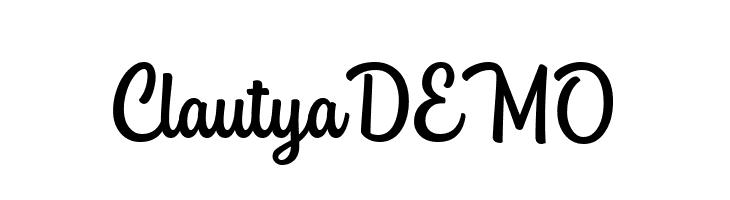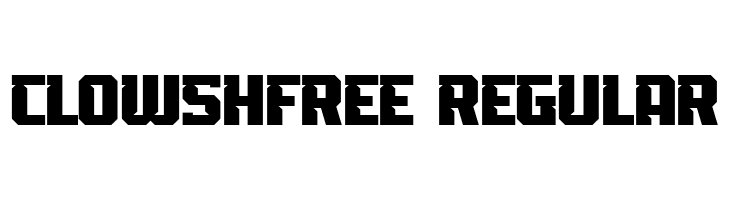
A playful, casual script font with a handwritten style.
A bold, edgy font with sharp, angular lines and dynamic energy.
A playful and modern font with thin, geometric strokes and whimsical character designs.
A bold, playful font with a three-dimensional shadow effect and dynamic curves.
A dynamic and fluid handwritten font with elegant, flowing strokes.
A bold, geometric font with a pixelated, digital style.
A fluid, cursive font with elegant, connected characters.
A modern, geometric, and condensed font with rounded edges.
A sleek, geometric font with a modern and minimalistic design.
A sleek, extra light, and condensed font with a modern geometric design.